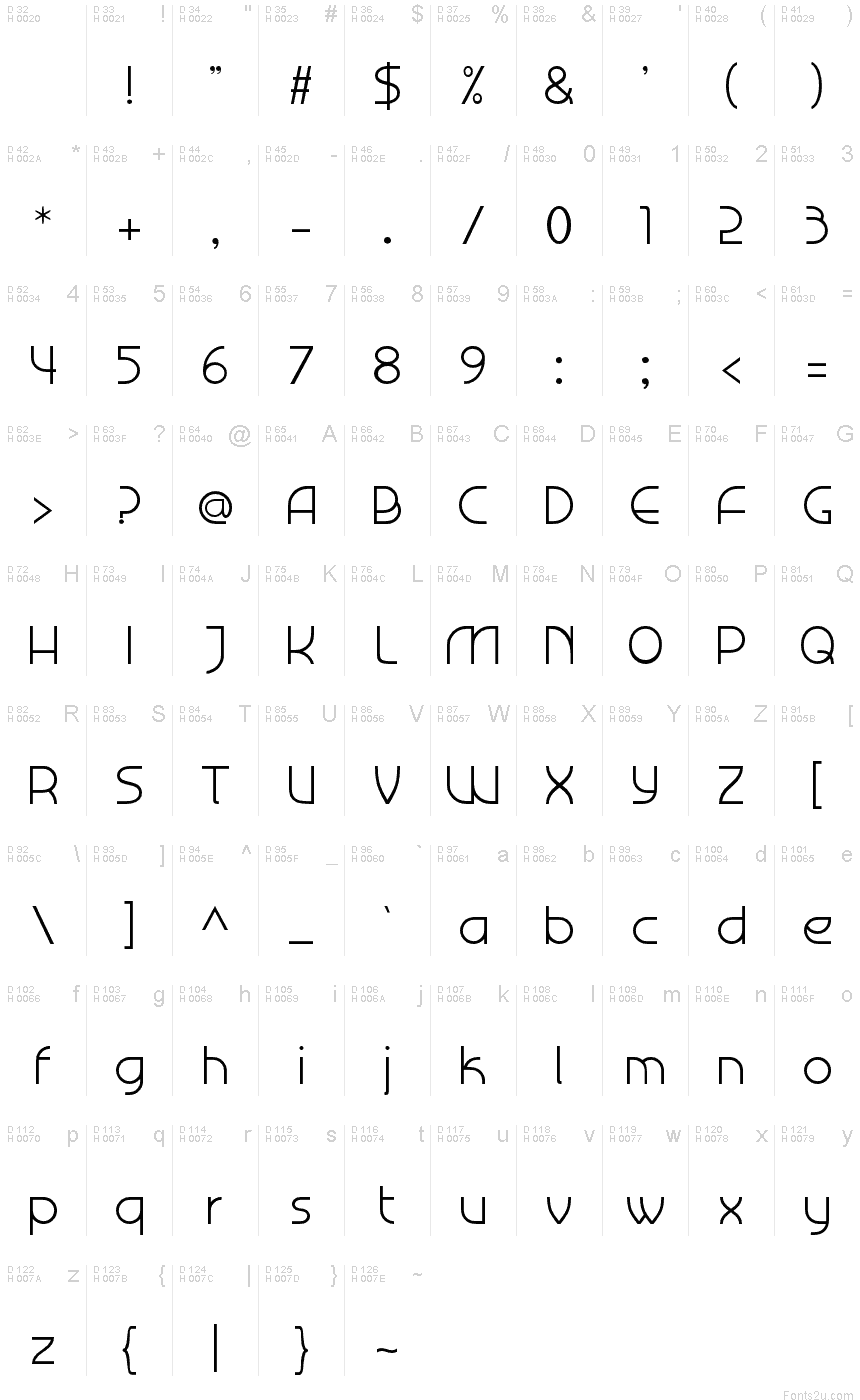
C7nazara by Situjuh Nazara of Situjuh is a free geometric sans serif with very light strokes and an unusually spacious silhouette. Broad circles, tall straight lines, and open-sided forms create a sleek, engineered look, with several letters reduced to near-abstract curves.
A technology brand identity is its clearest fit. The lettering also suits exhibition posters, electronic music artwork, and architectural signage, where its spare geometry can become part of a diagram, interface, or linear emblem instead of serving only as text.